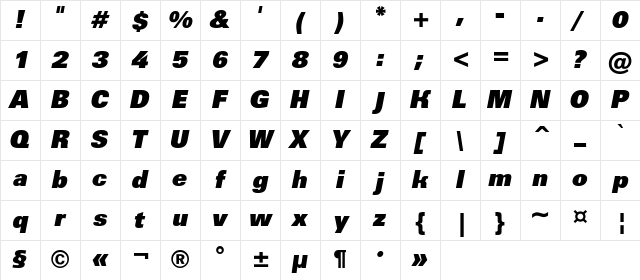
a_GroticExtraBlack Italic Free Font
a_GroticExtraBlack Italic
Design Context for a_GroticExtraBlack
a_GroticExtraBlack is a composed and adaptable typeface that performs quietly and consistently across a wide range of design contexts. The slanted form adds forward momentum and visual energy.
Pro Tip: Use a_GroticExtraBlack for emphasis, pull quotes, and subheadings where its slanted energy can add rhythm to the layout.